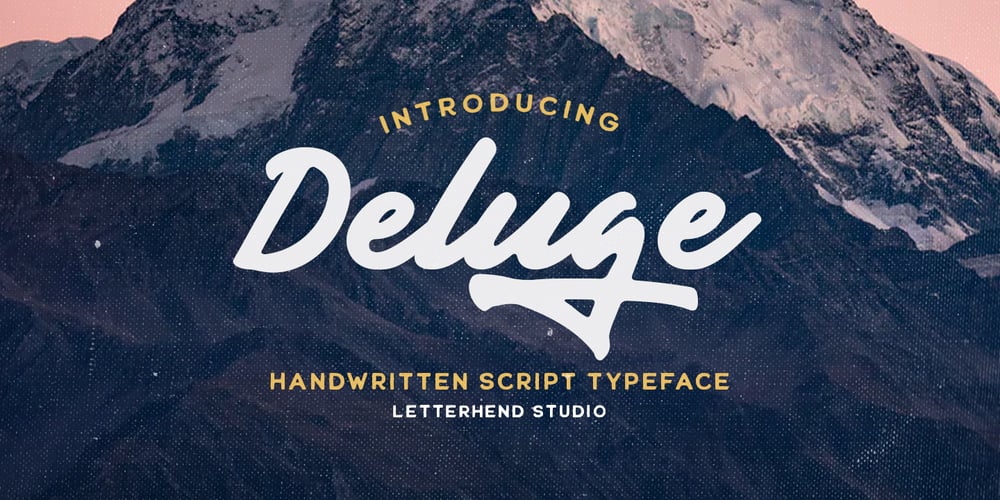
Deluge Font Family was designed by Hendry Juanda and published by Letterhend. Deluge contains 1 styles and family package options. Introducing, Deluge- Handwritten Script Typeface. The natural hand writing feel make this font makes it stands out. This font perfectly made to be applied especially in logo, and the other various formal forms such as invitations, labels, logos, magazines, books, greeting / wedding cards, packaging, fashion, make up, stationery, novels, labels or any type of advertising purpose.Features : uppercase & lowercase numbers and punctuation multilingual ligatures alternates PUA encoded We highly recommend using a program that supports OpenType features and Glyphs panels like many of Adobe apps and Corel Draw, so you can see and access all Glyph variations. How to access opentype feature : letterhend.com/tutorials/using-opentype-feature-in-any-software/Email us to letterhend@gmail.com if you need something! Happy Designing!